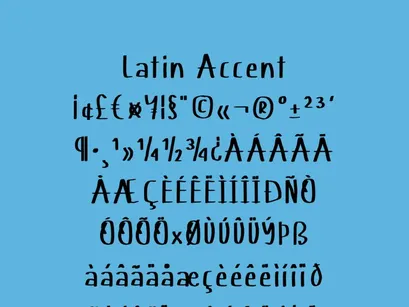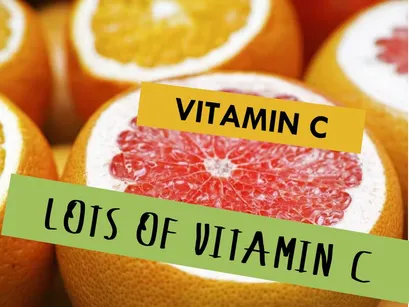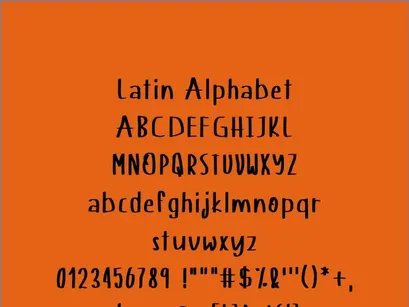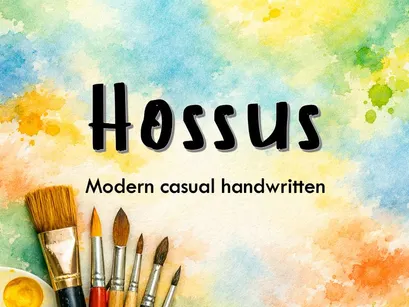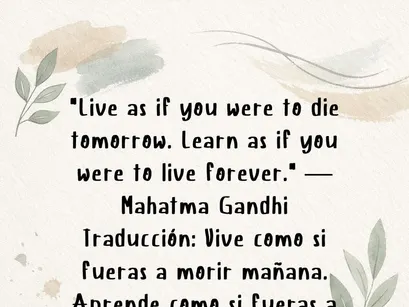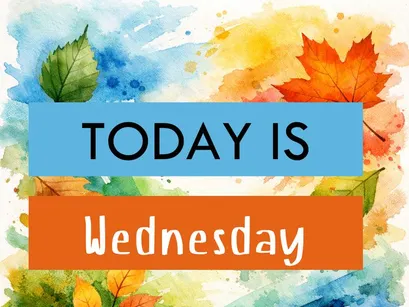
Hossus is a modern, casual handwritten typeface inspired by natural brushstrokes and the fluidity of hand-lettering.
Its style blends spontaneity with clarity, making it ideal for projects that call for a human, artistic touch—such as agendas, planners, covers, branding, invitations, or digital content.
Includes:
Full Latin alphabet (uppercase and lowercase)
Accented characters and basic symbols
💛 With its confident yet friendly strokes, Hossus brings personality, color, and authenticity to any creative design.